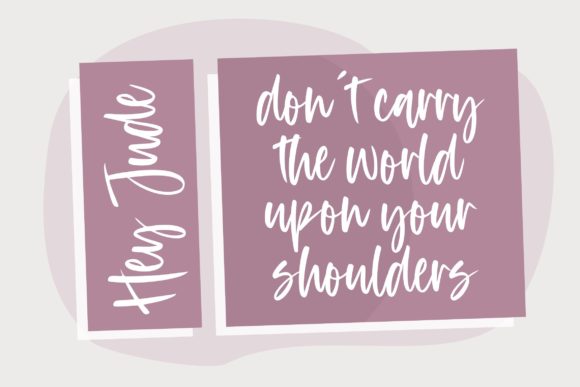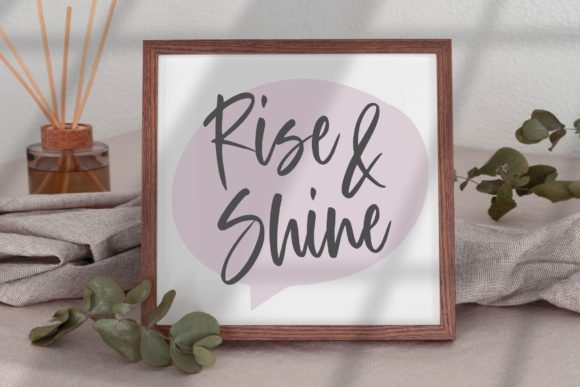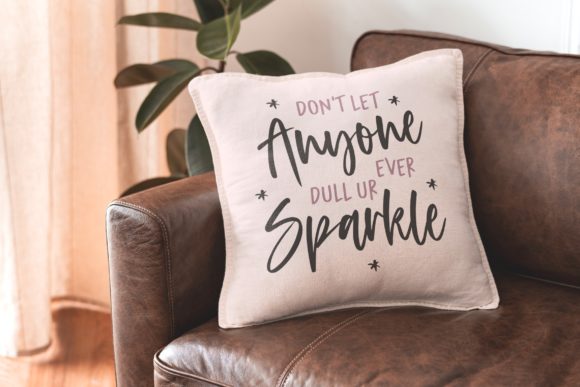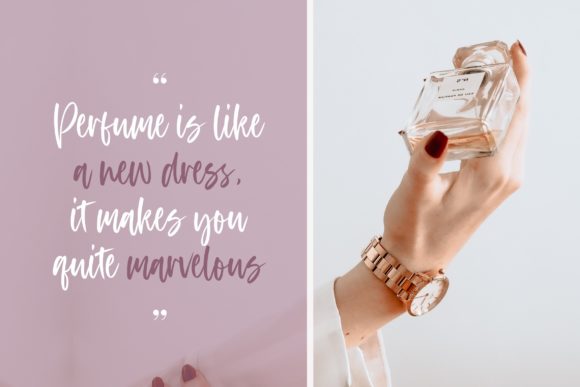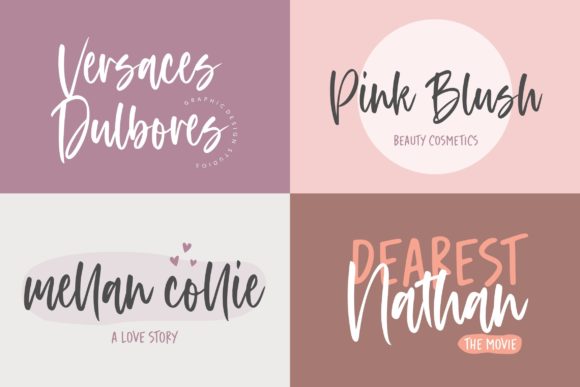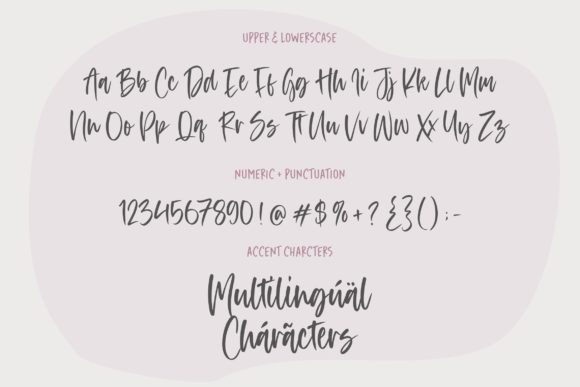
Introduction to Acordian Font
Have you ever found yourself in the middle of a creative project, desperately searching for that perfect font to bring your vision to life? You’ve browsed through countless options, but nothing seems quite right. That’s when you stumble upon a hidden gem – the Acordian Font. Its modern and asymmetrical script design will leave you wondering how you ever managed without it.
With its versatility and unique aesthetic, the Acordian Font is a valuable addition to any designer’s toolkit. Whether you’re creating greeting cards, thank you cards, quotes, logos, business cards, or any other design that requires a customized touch, this font is sure to elevate your project. Its transparent background and high-quality design make it a free download that’s hard to resist.
Key Features of Acordian Font
- Unique, hand-drawn design with a distressed, vintage feel, making it perfect for creative projects and designs.
- Comes with a transparent background, allowing for easy integration into various design elements and backgrounds.
- Perfect for use in creative projects, such as invitations, posters, and other design elements where a unique, hand-drawn look is desired.
Honest Review: Acordian Font
As a designer, I’m always on the lookout for high-quality fonts to elevate my creative projects. The Acordian Font caught my attention, and I decided to give it a try. After using it for a few projects, I’m excited to share my honest review with you.
- ✨ Unique design style: The Acordian Font has a distinctive look that’s perfect for adding a touch of elegance to your design. Its intricate details and flowing lines make it a great choice for creative projects.
- ⚠️ Limited font weights: While the font has a nice range of styles, it’s limited to a few font weights, which might not be suitable for all design projects.
- ⚠️ Not ideal for small text: Due to its intricate design, the Acordian Font might not be the best choice for small text or body copy.
Overall, I’m impressed with the Acordian Font’s unique design and free availability. It’s a great design resource for creative projects, and I’d definitely recommend it to fellow designers. However, keep in mind its limitations, and use it wisely in your designs.
Acordian Font Overview
The Acordian Font is a unique and versatile design resource that can add a creative touch to any project. With its transparent background, this font is perfect for creating high-quality designs that require a clean and minimalist look.
Tips for Getting the Most Out of Acordian Font
To get the most out of the Acordian Font, experiment with different font sizes, colors, and combinations. You can also use it to create a transparent background by adjusting the font settings.
The Acordian Font is perfect for various creative projects, including:
Alternatives to Acordian Font
Lobster Font is a popular script font that adds a touch of elegance to any creative project. It’s perfect for designing invitations, wedding cards, or any other project that requires a romantic feel. When to use: Wedding invitations, romantic posters, and creative typography projects. It compares to Acordian Font in its cursive nature, but Lobster Font has a more refined and sophisticated look.
Pacifico Font is a beautiful, modern script font that’s perfect for adding a touch of sophistication to your design projects. It features a high-quality, elegant design that works well with transparent backgrounds and can be used for a wide range of creative projects. When to use: Magazine covers, blog headers, and any project that requires a stylish, modern look. It compares to Acordian Font in its cursive nature, but Pacifico Font has a more polished and refined look.